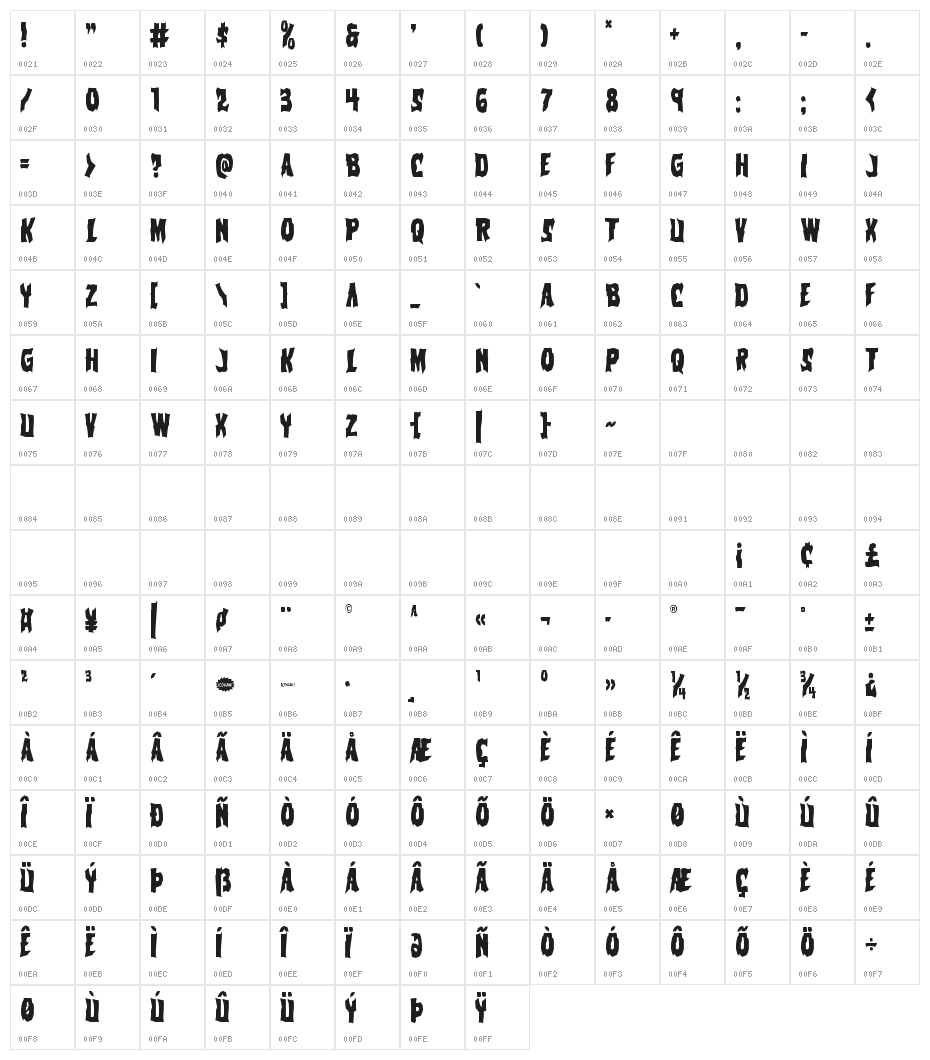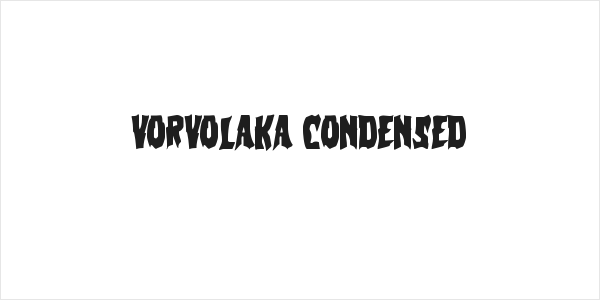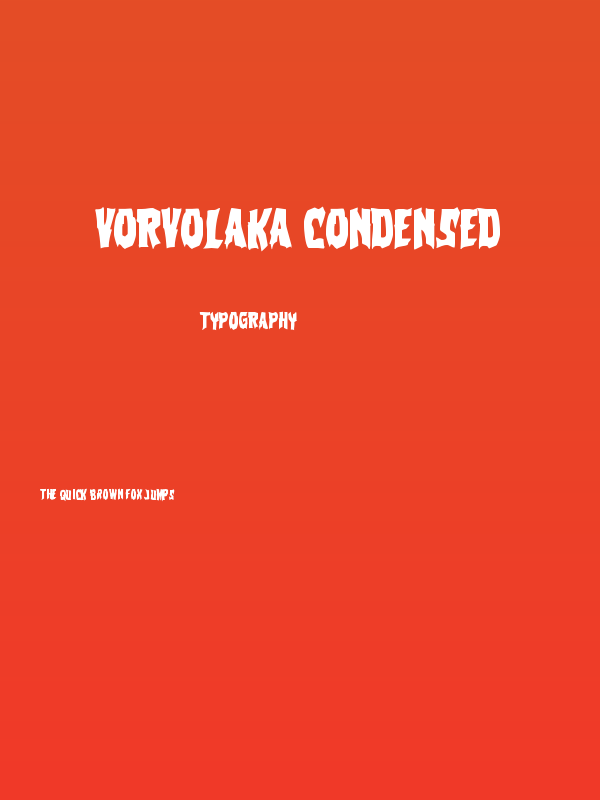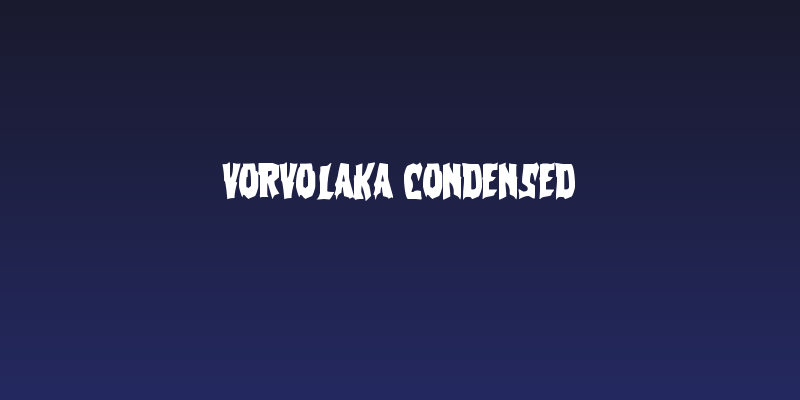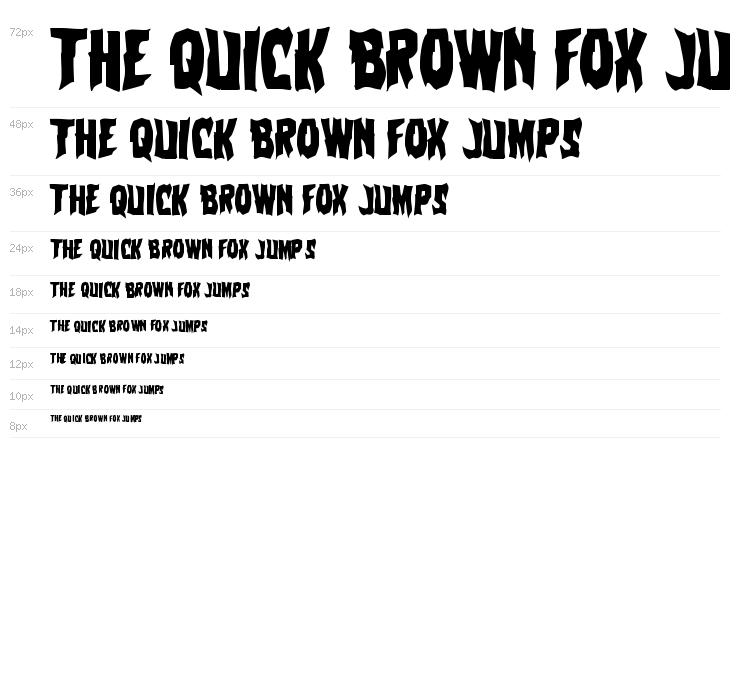
Vorvolaka Condensed Font
Vorvolaka Condensed Description
This font features a bold and jagged design, reminiscent of horror or thriller themes. The characters are heavily stylized with sharp edges and irregular shapes, creating a sense of movement and intensity. The uppercase and lowercase letters maintain a consistent style, with a condensed width that adds to the dramatic effect. The numbers and special characters follow the same aesthetic, ensuring a cohesive look across all text elements. This font is ideal for projects that require a strong visual impact and a sense of urgency or excitement.
| Use Case | Headlines, Posters, Logos |
| Proposed Projects | Perfect for horror movie posters, Halloween event flyers, edgy album covers, or any project needing a dramatic and intense typeface. |